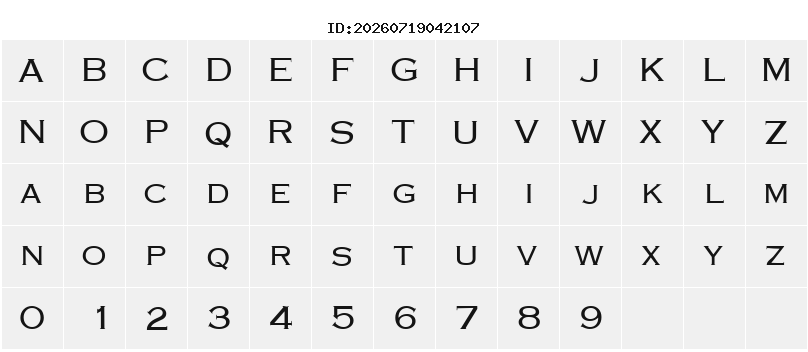
Conga Preview
• Font Name: Conga
• Full Font Name: Conga Bold
• PostScript Name: CongaBold
About Conga.ttf
Conga.ttf is a modern, elegant sans-serif font designed for ultimate readability and visual harmony. Perfect for branding, headlines, web design, and print materials.